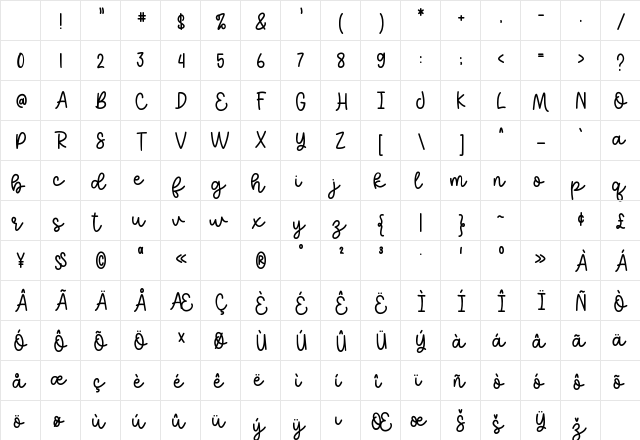
Complete Boho Sunshine 1 Regular glyph index. Displaying only characters natively supported by Boho Sunshine 1 Regular font.
Boho Sunshine 1 is a composed and adaptable typeface that performs quietly and consistently across a wide range of design contexts.